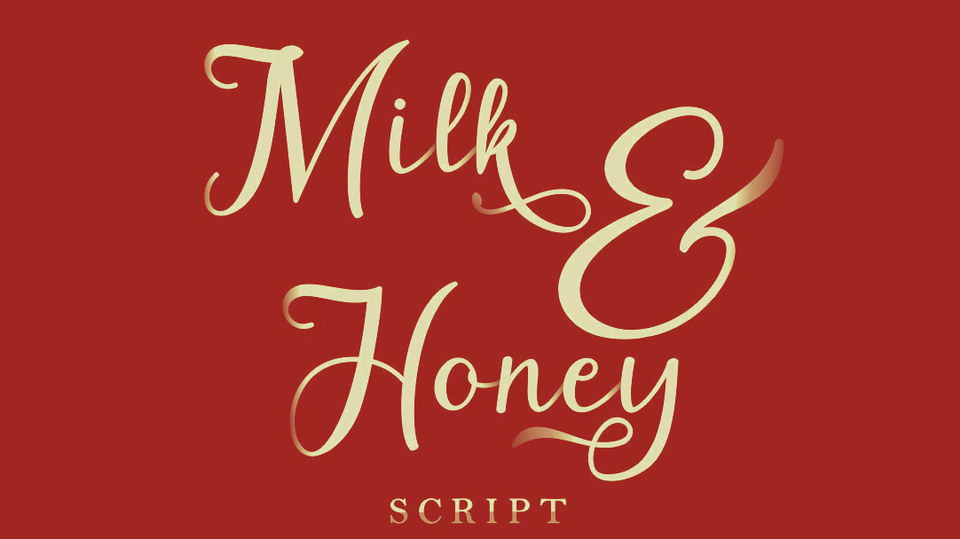
Feb 14, 2025Script & HandwrittenMilk & Honey Script Milk & Honey is a beautiful and elegant modern calligraphy script font that is perfect for your needs such as packaging, photography, magazines, quotes, and beautiful writing, etc. Font DetailsDesigned by: Fikry AlifWebsiteLicense: Free for personal use Download Milk & Honey ScriptFile size: 58.18 KBCreated: February 16, 2025Updated: February 16, 2025 Download Explore similar fonts Tritopani Font Sofiya Wiyona Font Astoria Font Bonskin Font Melathea Font Aesthetic Shine Font # Calligraphy# Cursive# Elegant# Fashion# Handwriting# Wedding More fonts by Fikry AlifRelevant FontRaosand FontCherlynda FontHastage ScriptSilence Rocken FontStoner FontPersian Cotage ScriptPalmaton Font